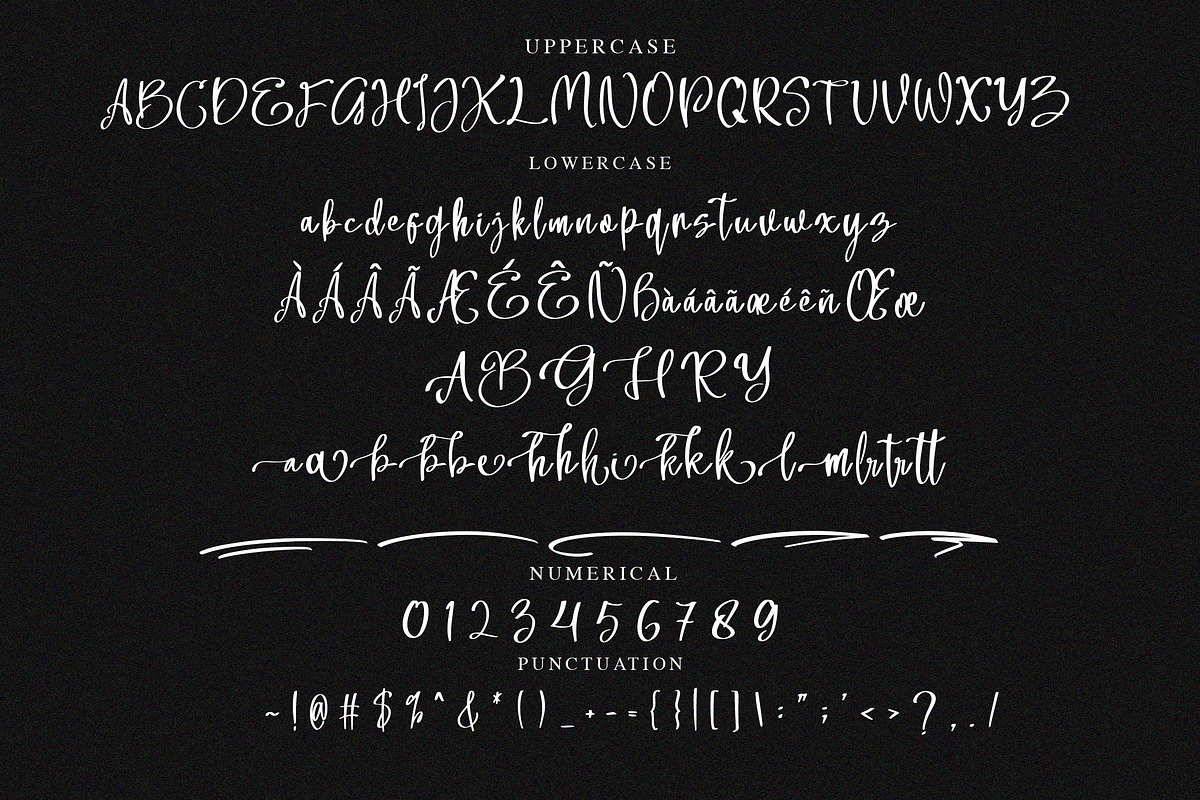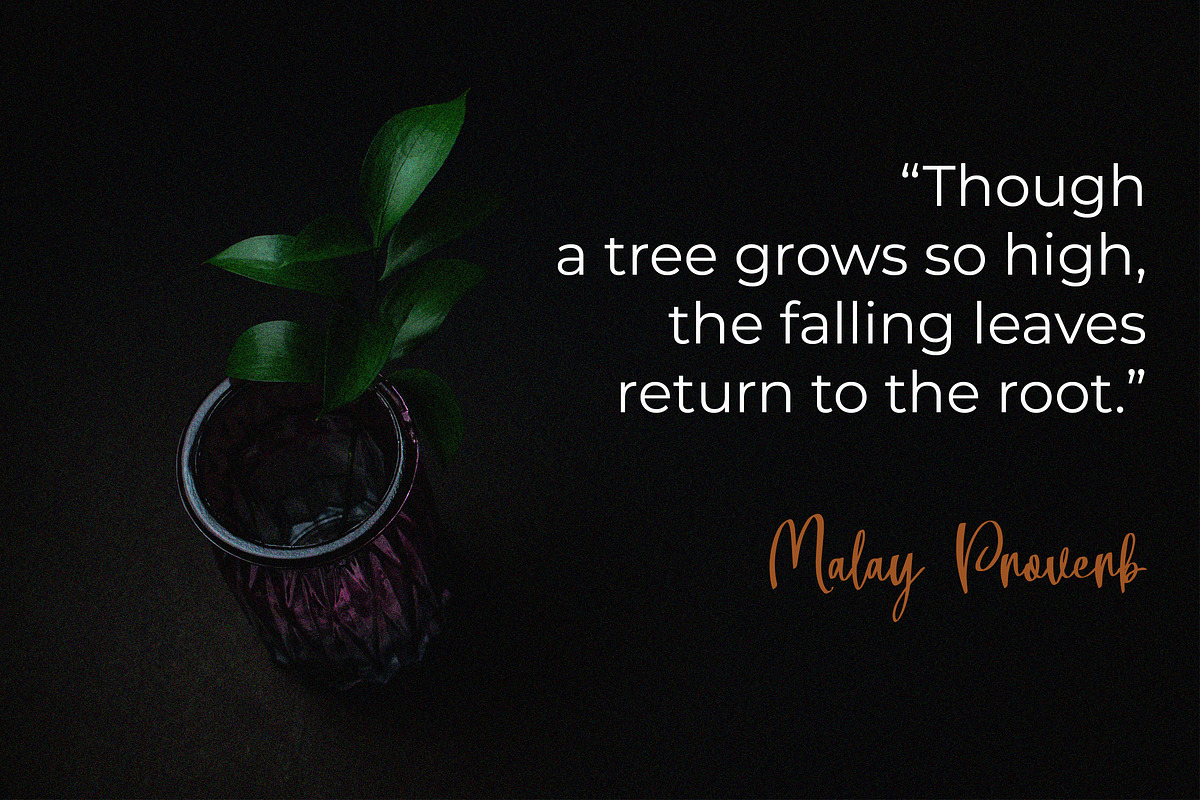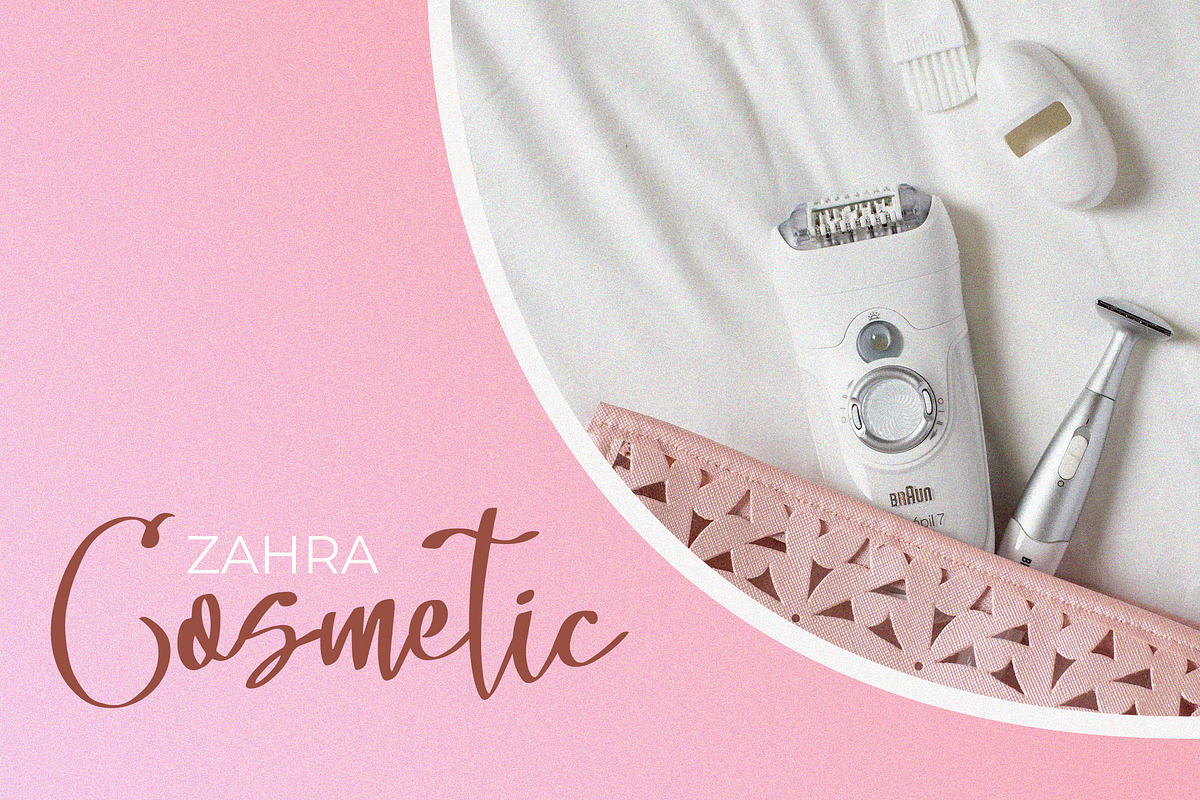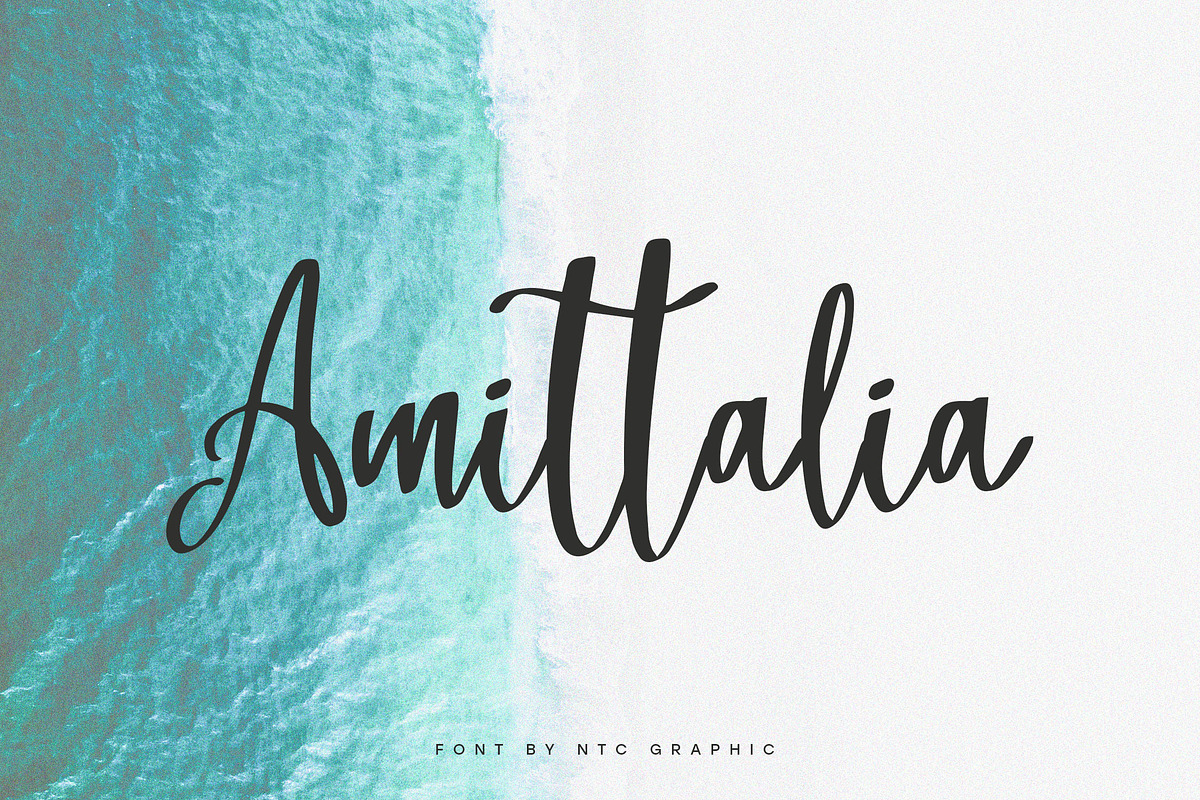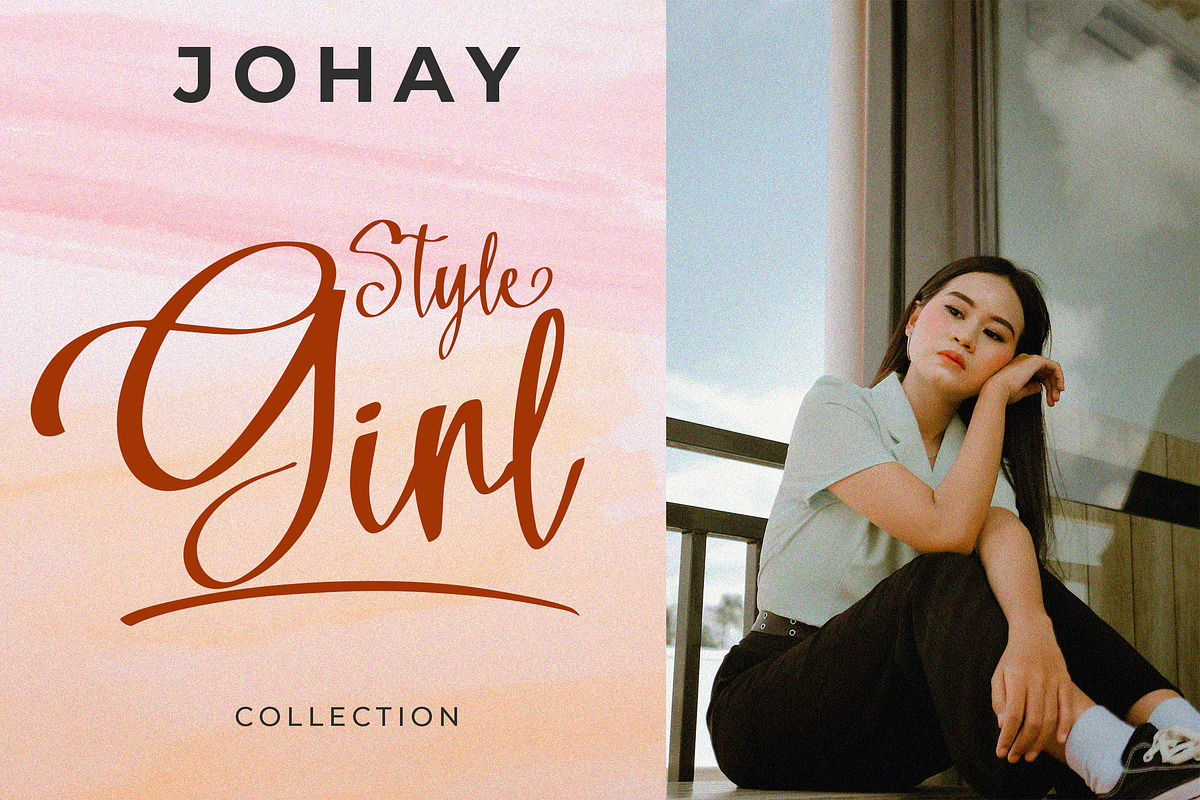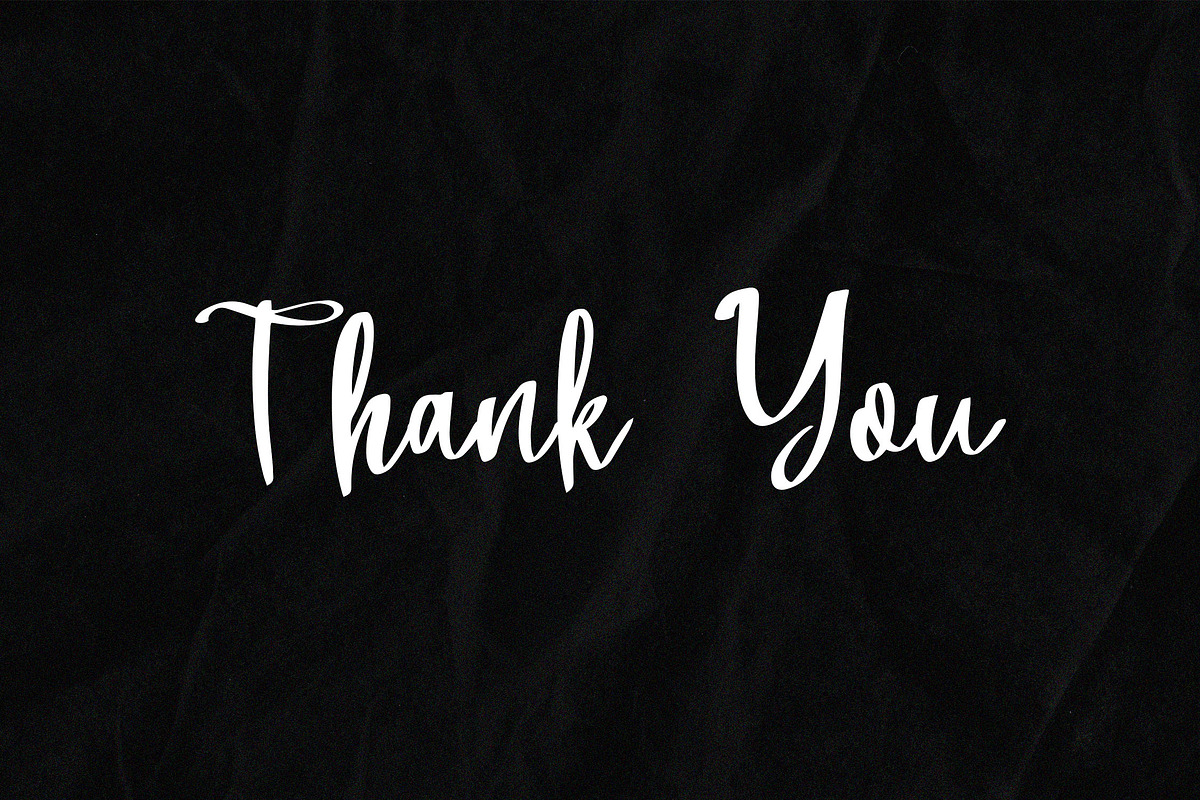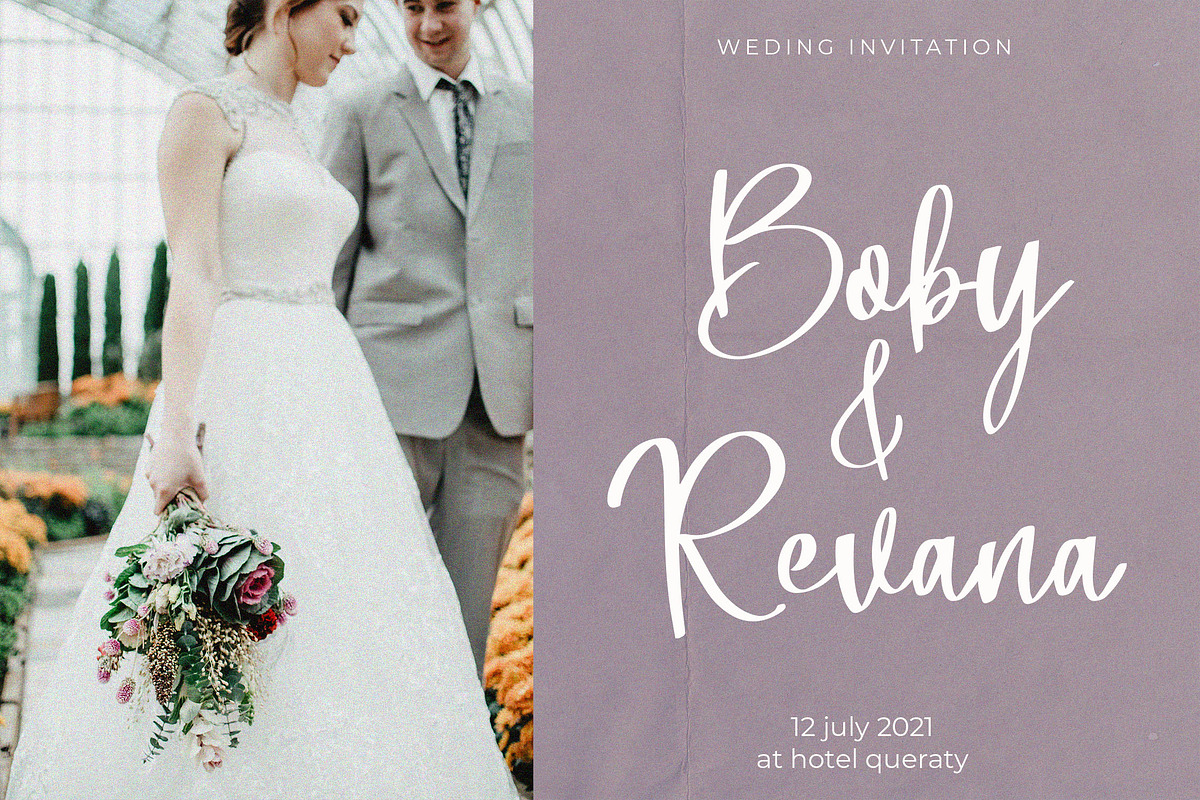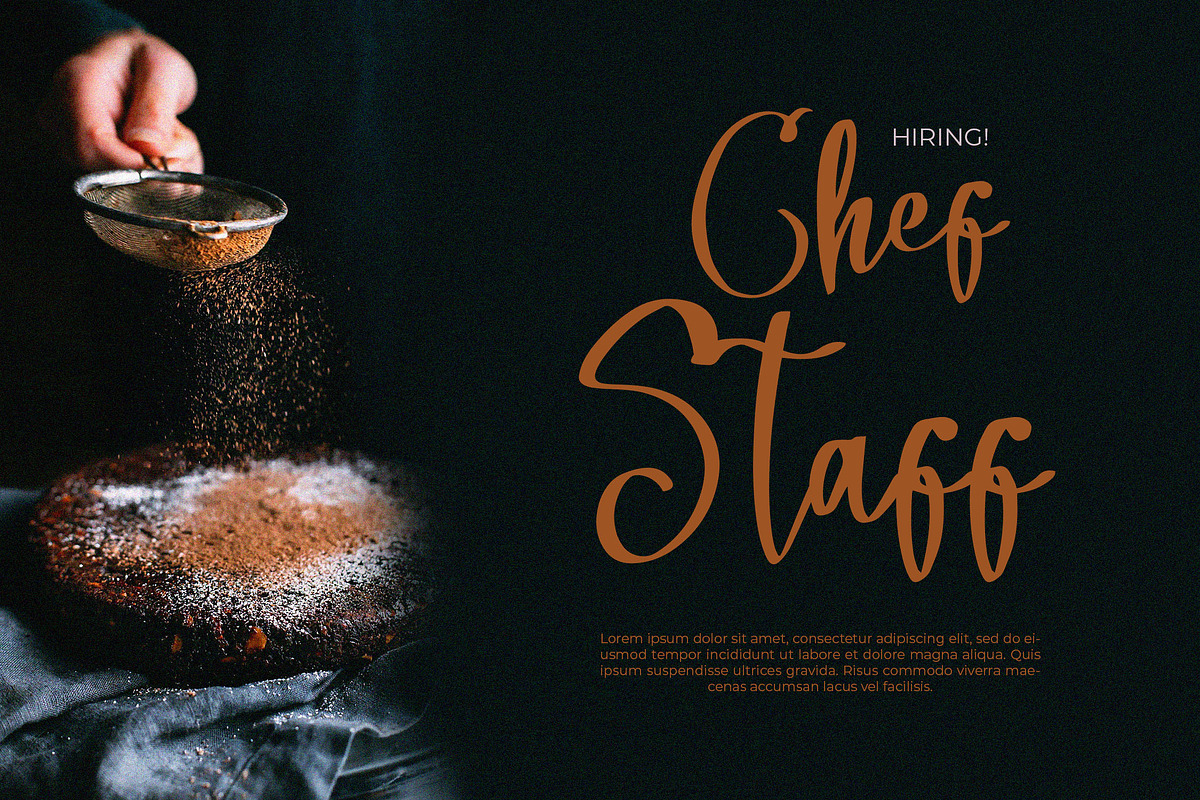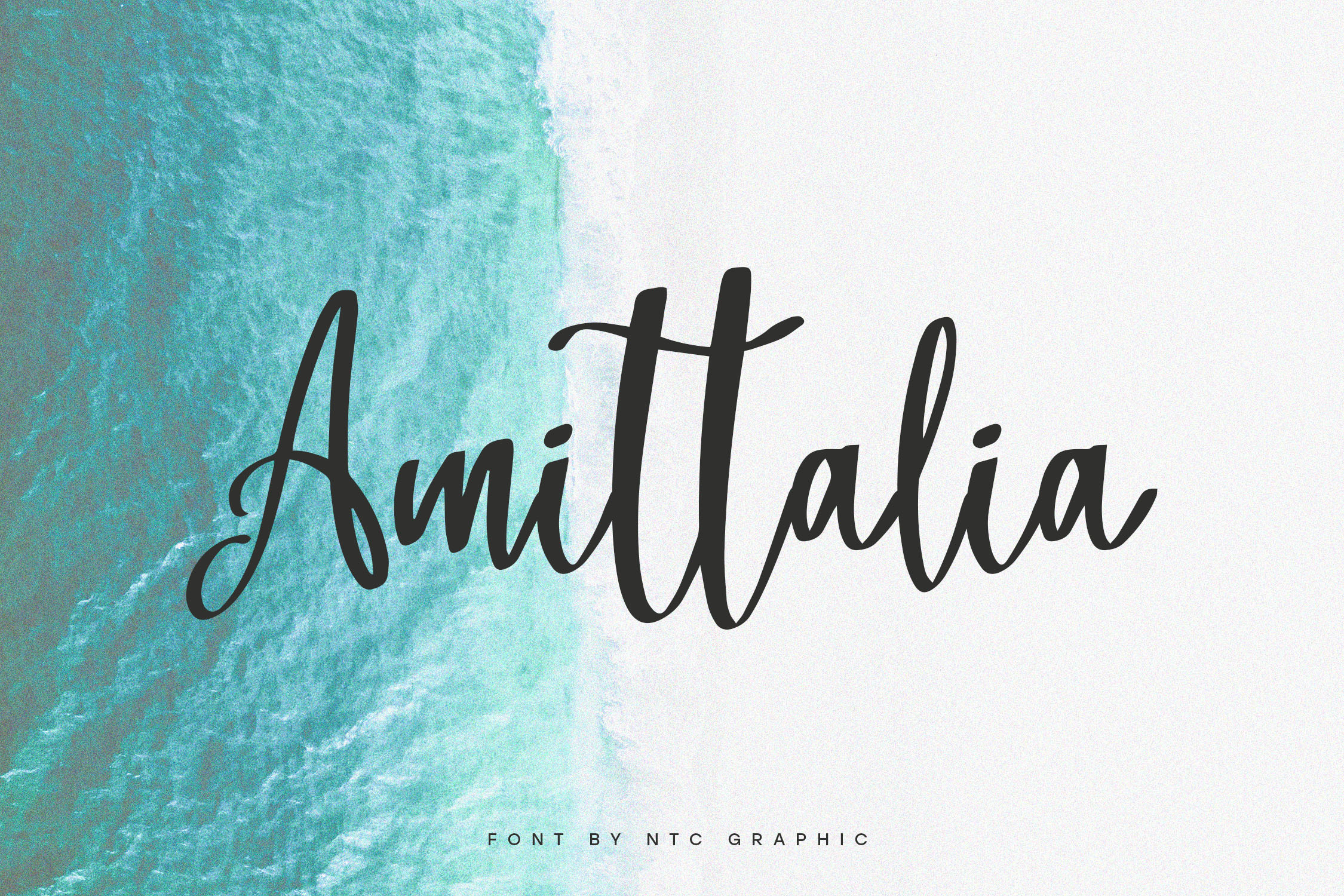
Amittalia Brush Script Font
Amittalia is a beautiful script font with handwritten brush style. Is a font style that is made with scratches and curvature shapes font characters are very beautiful. Can be applied to support the graphic appearance of the product to be more attractive and unique.
- Stylistic Alternate